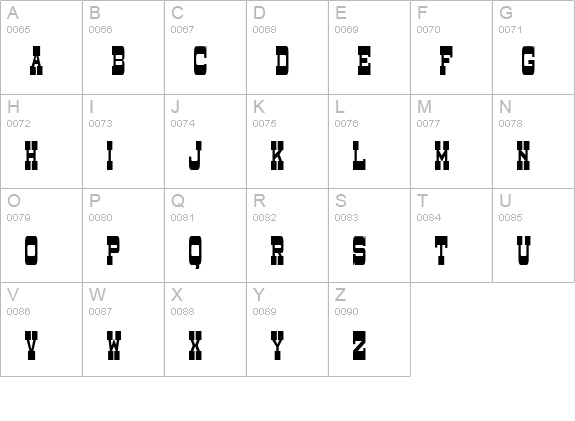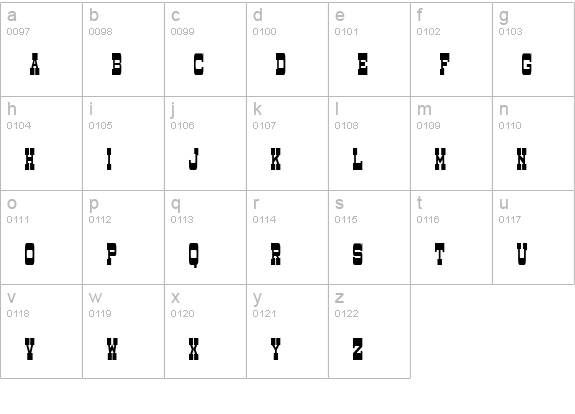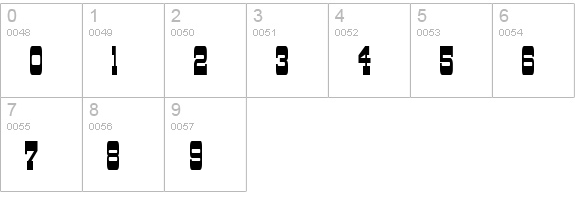
Dry Goods Narrow Sm. Caps JL is a distinctive, condensed-width variant in the Dry typeface family \xE2\x80\x94 well suited to design and typography projects.
The Dry Goods Narrow Small Caps JL font is a sleek and sophisticated typeface that exudes modernity and elegance. With its narrow proportions and stylish small caps, this font is perfect for adding a touch of sophistication to any design project. The clean lines and sharp angles of this font make it ideal for creating eye-catching titles, headings, and logos. What sets this font apart is that it is available for free download at FontsMarket.com. This means that you can easily access and use this high-quality font in your projects without any cost. Whether you're working on a branding project, a website design, or a print advertisement, the Dry Goods Narrow Small Caps JL font will elevate your design and make it stand out from the rest. Download the Dry Goods Narrow Small Caps JL font for free today and add a touch of elegance and sophistication to your designs!